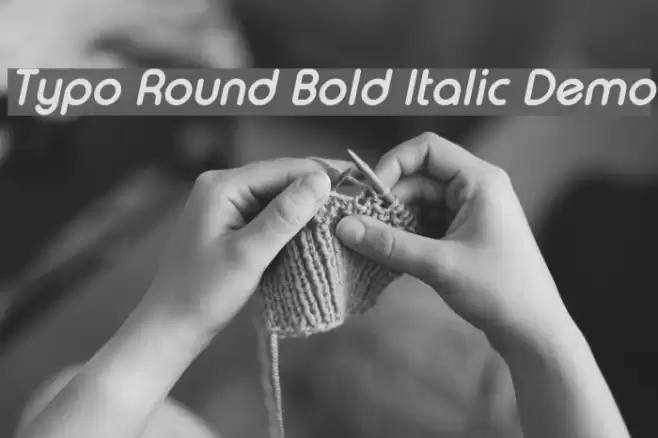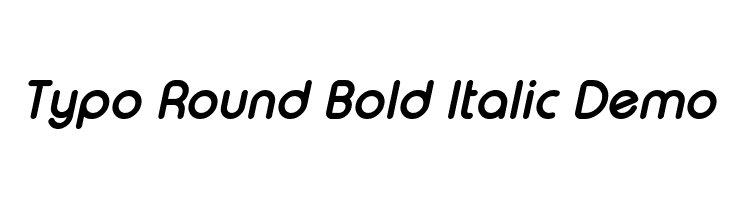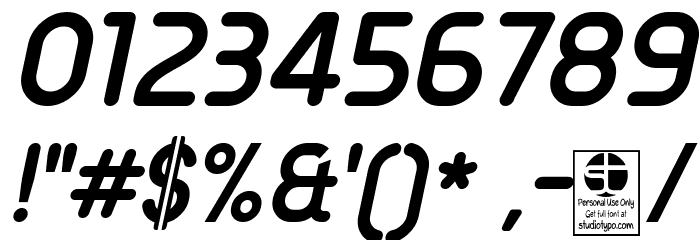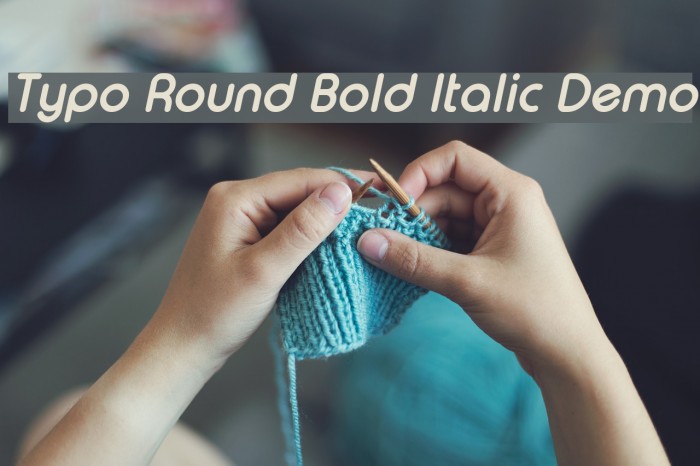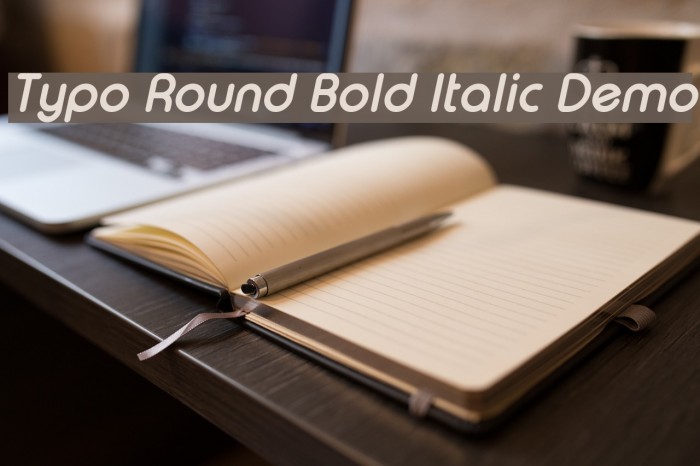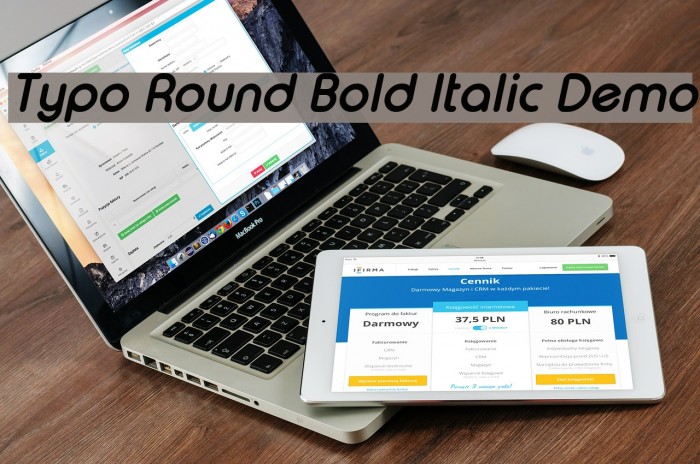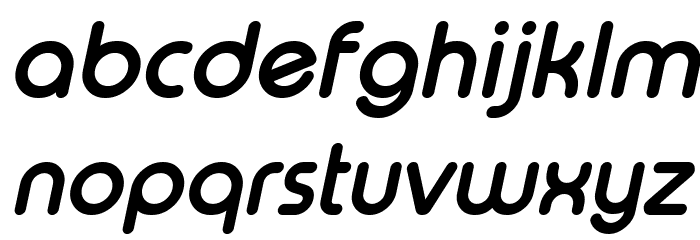
Typo Round Bold Italic Demo Font
Typo Round Bold Italic Demo Description
This font features a bold and rounded style with a distinct italic slant, giving it a dynamic and modern appearance. The characters are smooth and fluid, with a consistent stroke width that enhances readability while maintaining a playful and approachable aesthetic. The rounded edges soften the overall look, making it suitable for a variety of design contexts. The numerals and special characters are designed to match the letters in style, ensuring a cohesive appearance across all text elements. This font's unique combination of boldness and curvature makes it stand out, offering a friendly yet professional vibe.
A bold, rounded, and italic font with a modern and playful style from Uncategorized fonts.